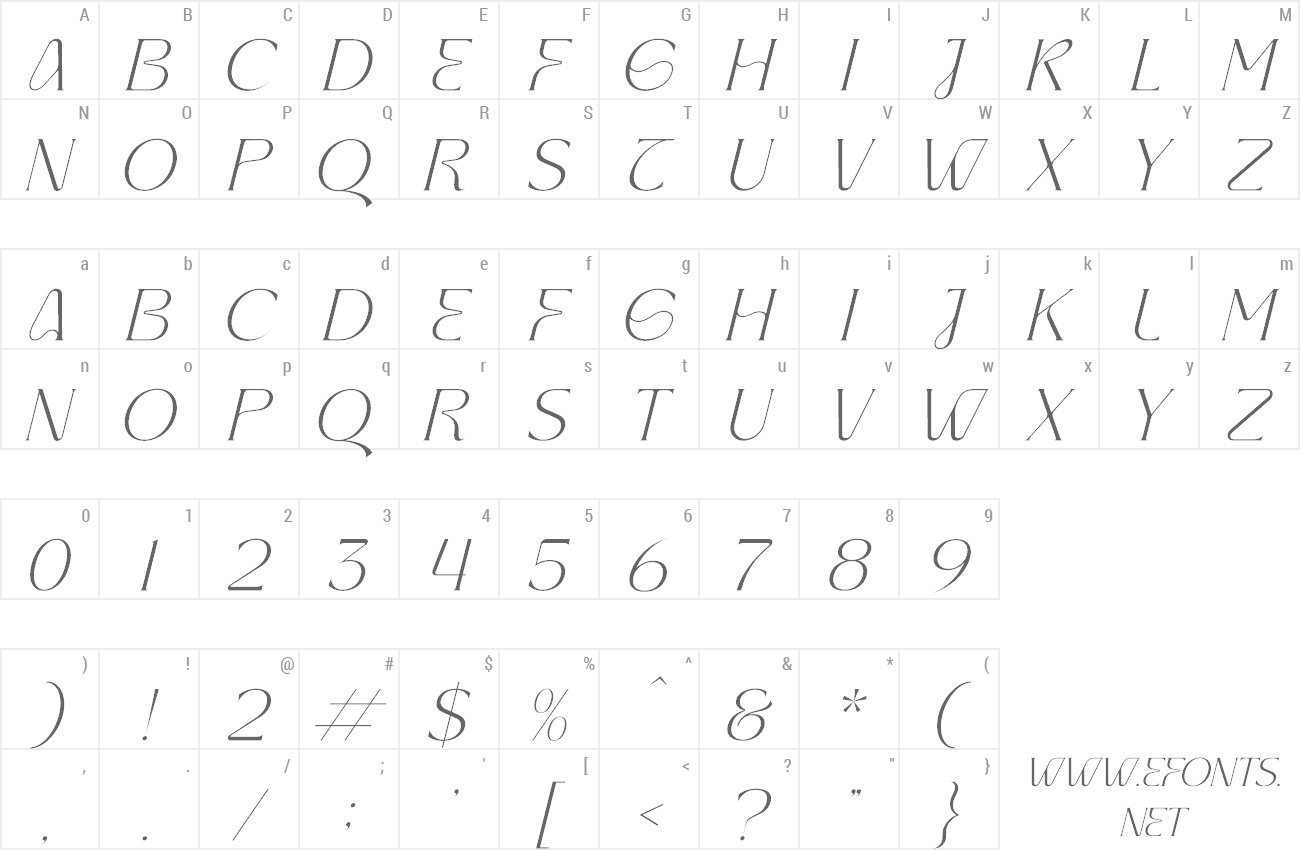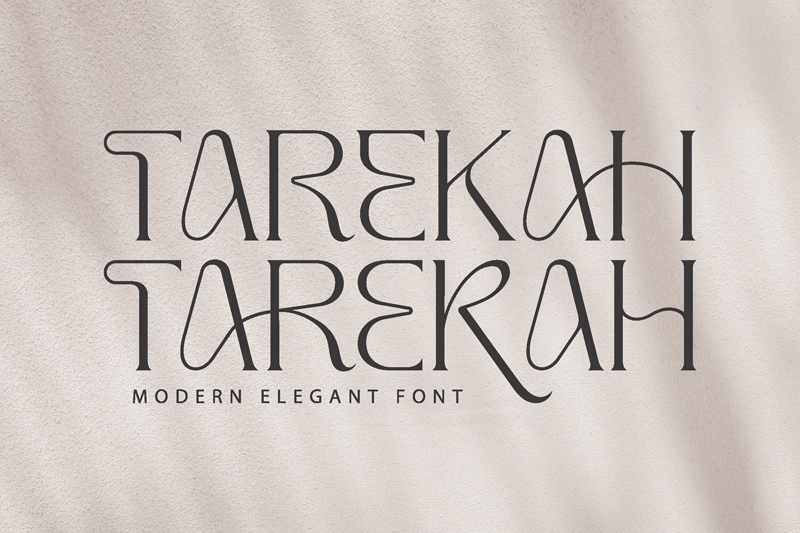
Preview and download Tarekah Font. Created by Denustudios in Fancy Retro styles with Free for personal use license.
| Font name: | Tarekah |
| Author: | Denustudios |
Proudly present Tarekah | Modern Serif Font, created by Denustudios, A serif modern and classic typeface that has own unique style & modern look. This typeface is perfect for an elegant & luxury logo, book or movie title design, fashion brand, magazine, clothes, lettering, quotes, and so much more. Product Content : TTF OTF WOFF Features : Uppercase and Lowercase Numerals Punctuations (OpenType Standard) Accents (Multilingual Characters) Ligatures and Alternative Style Stylistic Set Works on PC and Mac Simple installations Thank You. |